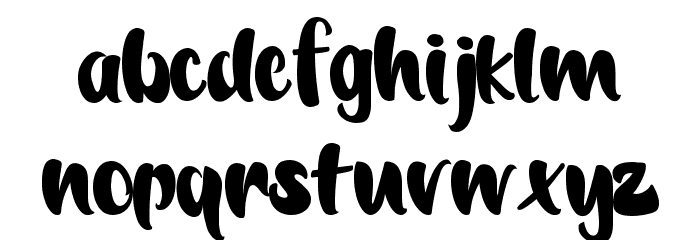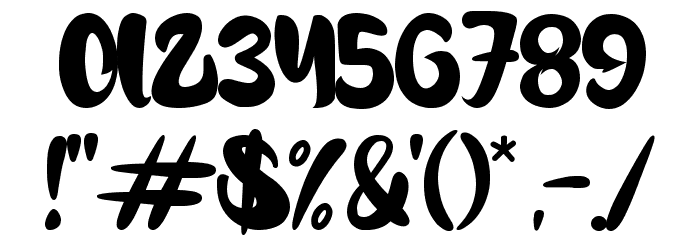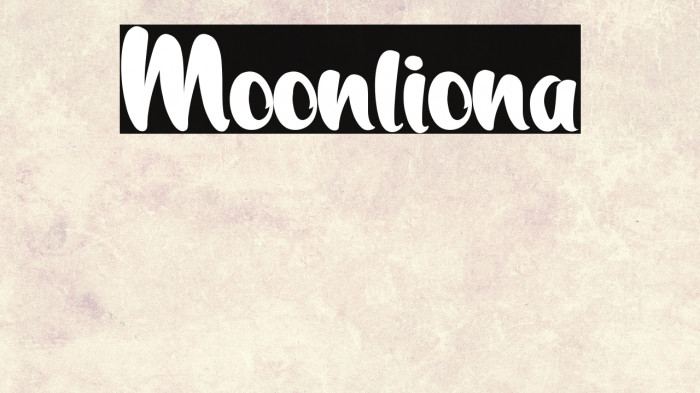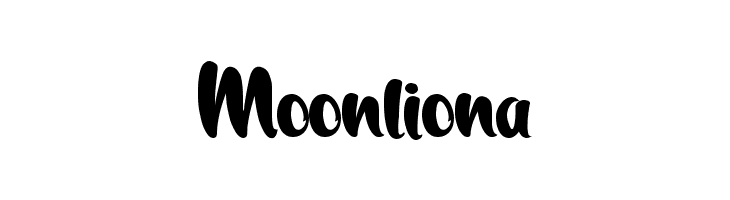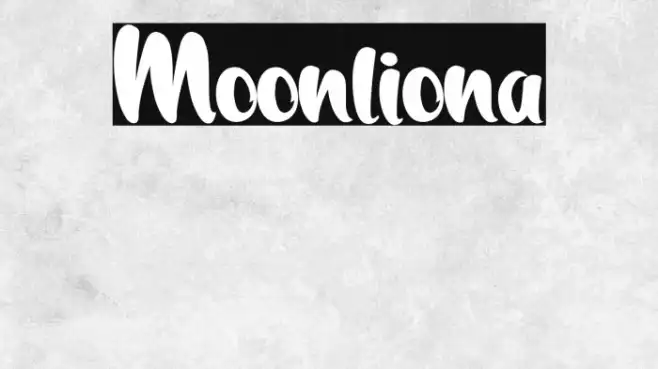
Moonliona Font
This font features a bold and playful script style with a strong presence. The characters are rounded and have a hand-drawn feel, giving them a lively and dynamic appearance. The uppercase letters are particularly bold, with thick strokes and smooth curves, while the lowercase letters maintain a consistent flow with slightly more variation in their forms. The numerals are equally bold, ensuring they stand out clearly. Special characters are designed to match the overall aesthetic, making this font suitable for creative and informal applications. Its unique style is perfect for projects that require a touch of personality and flair.
A bold, playful script font with a hand-drawn feel.
- Proposed Projects: Ideal for greeting cards, posters, branding, and social media graphics.